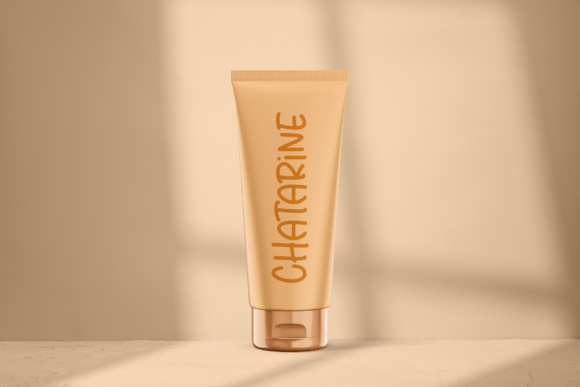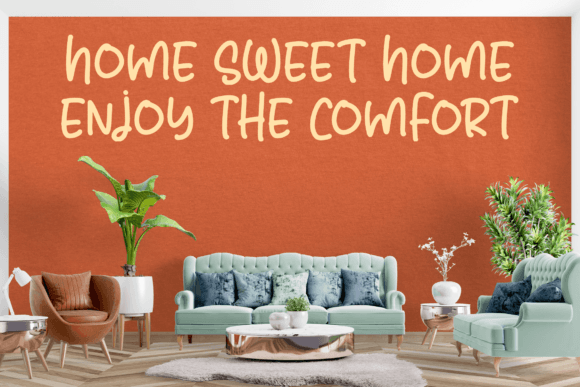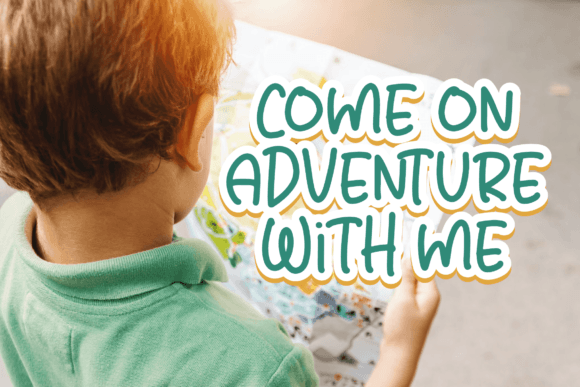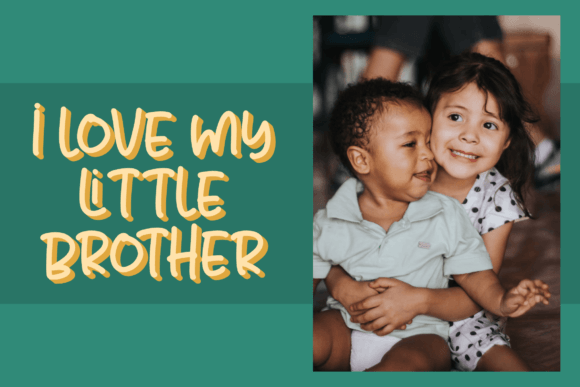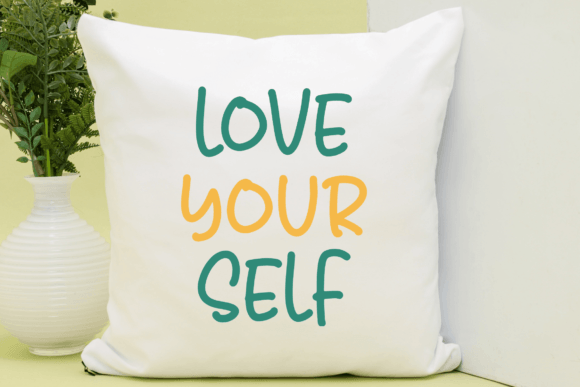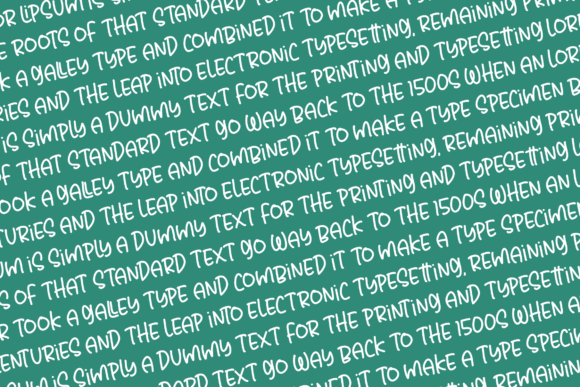
Introducing Charizard Font: The Ultimate Playful Handwritten Font
Are you tired of using the same old fonts in your designs? Look no further than Charizard Font, a fun and playful handwritten font that’s sure to elevate your creations. Whether you’re a designer, crafter, or simply someone who loves to dabble in DIY projects, Charizard Font is an incredible asset to have in your font library.
The Perfect Font for Any Project
One of the best things about Charizard Font is its versatility. No matter the topic or theme of your project, this font will fit right in. Whether you’re creating a children’s book, a craft tutorial, or a social media graphic, Charizard Font is sure to add a touch of whimsy and personality to your design. Its playful and carefree vibe makes it perfect for projects that need a bit of fun and flair.
What Makes Charizard Font So Special?
So, what sets Charizard Font apart from other fonts out there? For starters, its handwritten style gives it a personal and organic feel that’s hard to replicate with more traditional fonts. The letters are bold and expressive, with a playful bounce that’s sure to capture the eye. Plus, the font is highly legible, making it perfect for both headings and body text.
Charizard Font is a game-changer for designers and crafters alike. Here are just a few benefits of adding it to your font library:
- Adds personality to your designs: Charizard Font is the perfect way to add a bit of whimsy and personality to your designs. Whether you’re creating a logo, a brochure, or a social media graphic, this font is sure to make your design stand out.
- Perfect for kid-friendly projects: The playful and fun vibe of Charizard Font makes it perfect for projects aimed at kids. Whether you’re creating a children’s book, a craft tutorial, or a kids’ party invitation, this font is sure to delight.
- Great for DIY projects: If you’re a crafter or DIY enthusiast, Charizard Font is a great addition to your font library. Use it to create eye-catching titles and headings for your tutorials, patterns, and other DIY projects.
How to Use Charizard Font
- Use it for headings and titles: Charizard Font is perfect for headings and titles, where its bold and playful style can really shine.
- Mix it with other fonts: Don’t be afraid to mix Charizard Font with other fonts to create a unique and eye-catching design.
- Experiment with colors and textures: Charizard Font looks great in a variety of colors and textures. Experiment with different combinations to find the one that works best for your design.